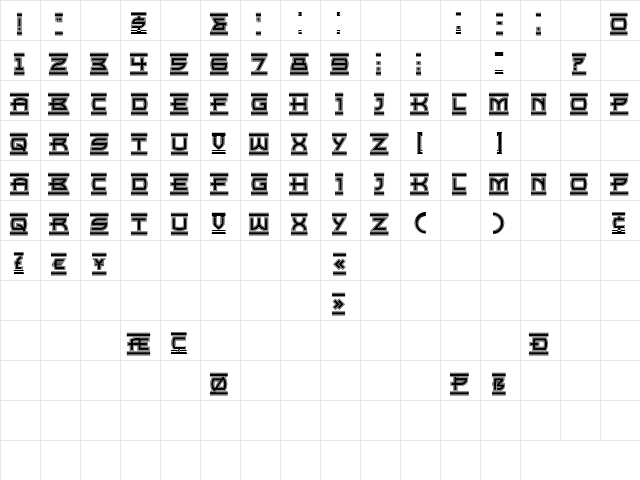
Empire State Capital Regular
Design Context for Empire State Capital Typeface
Empire State Capital is a composed and adaptable typeface that performs quietly and consistently across a wide range of design contexts.